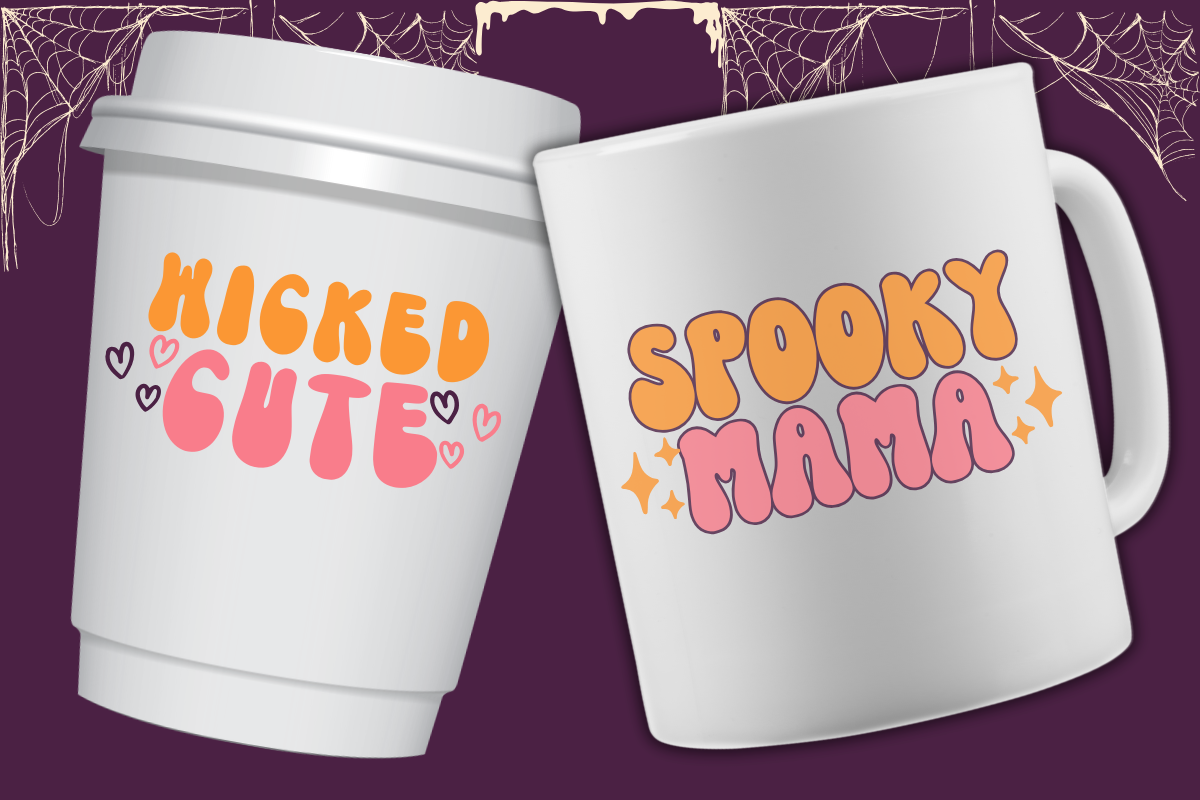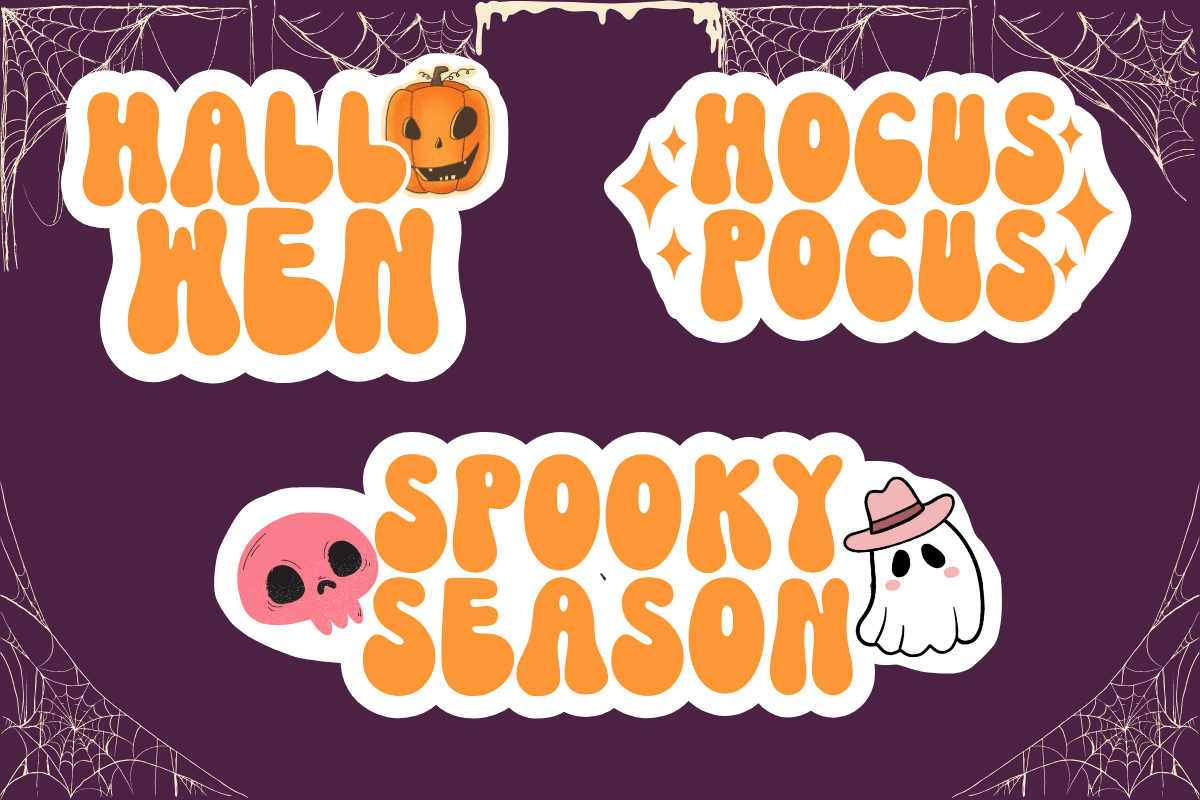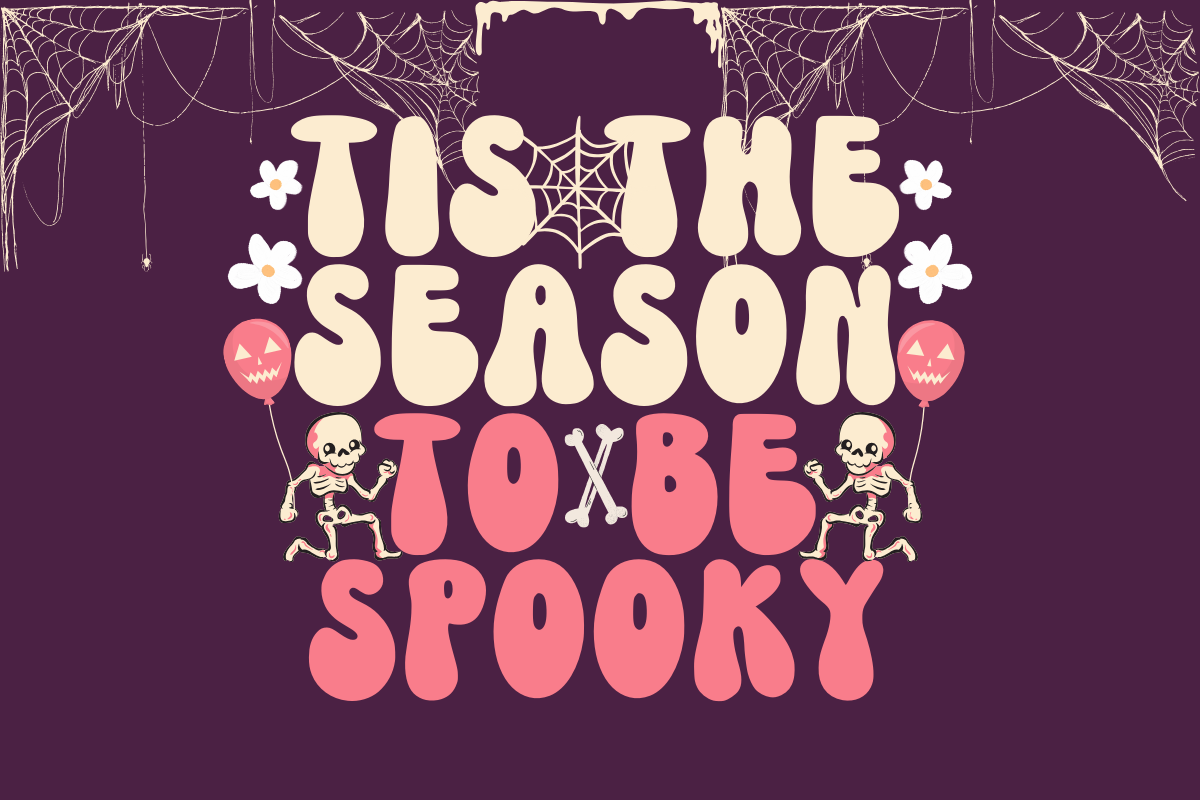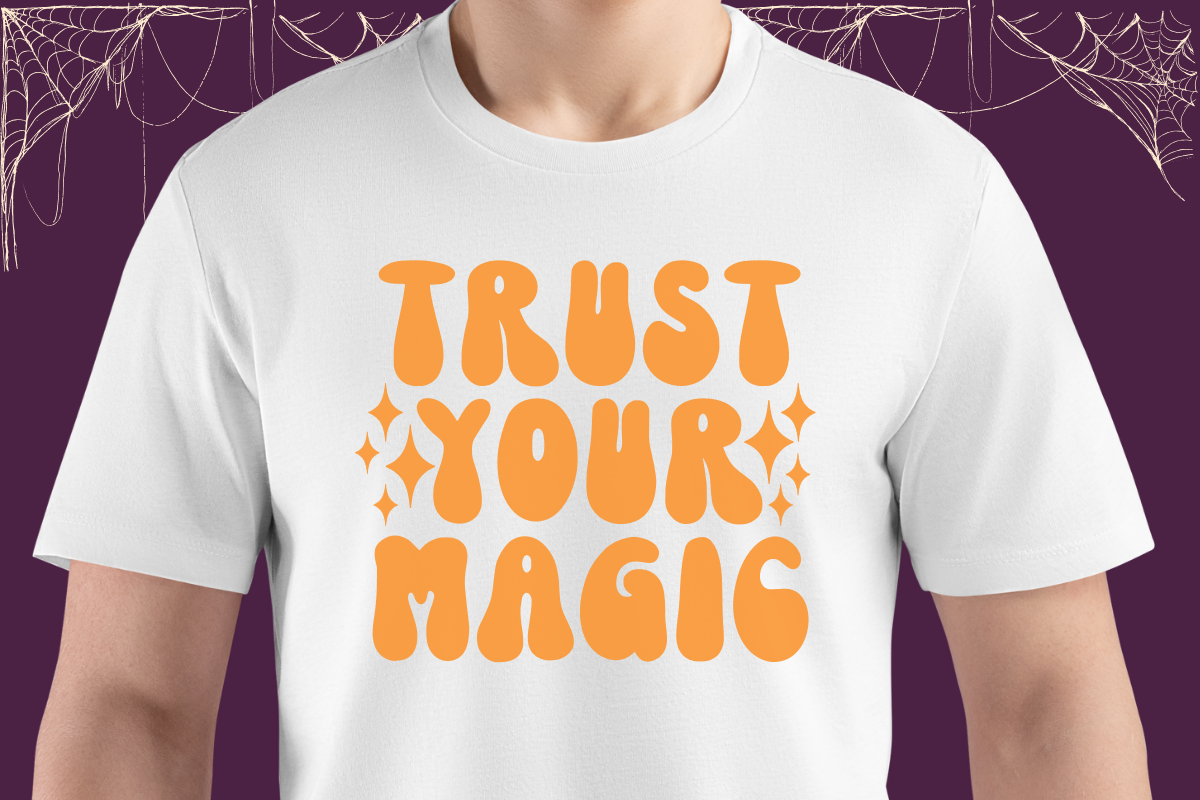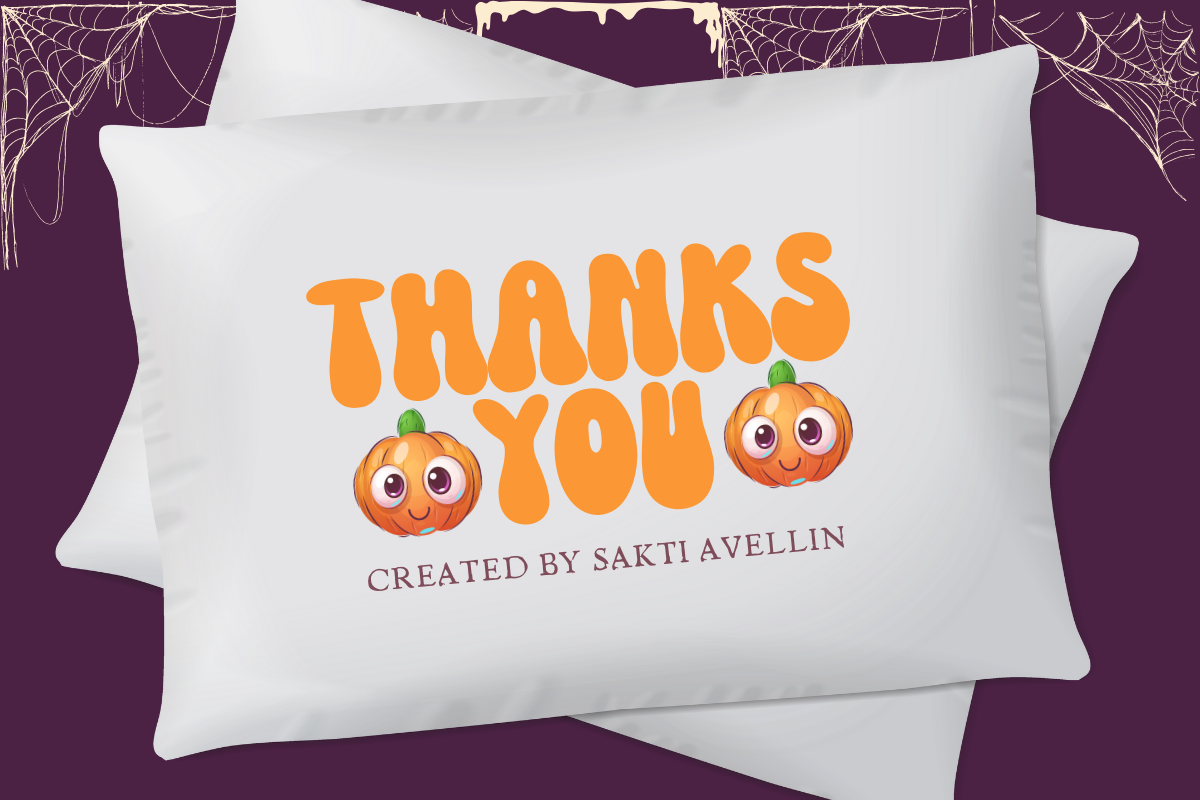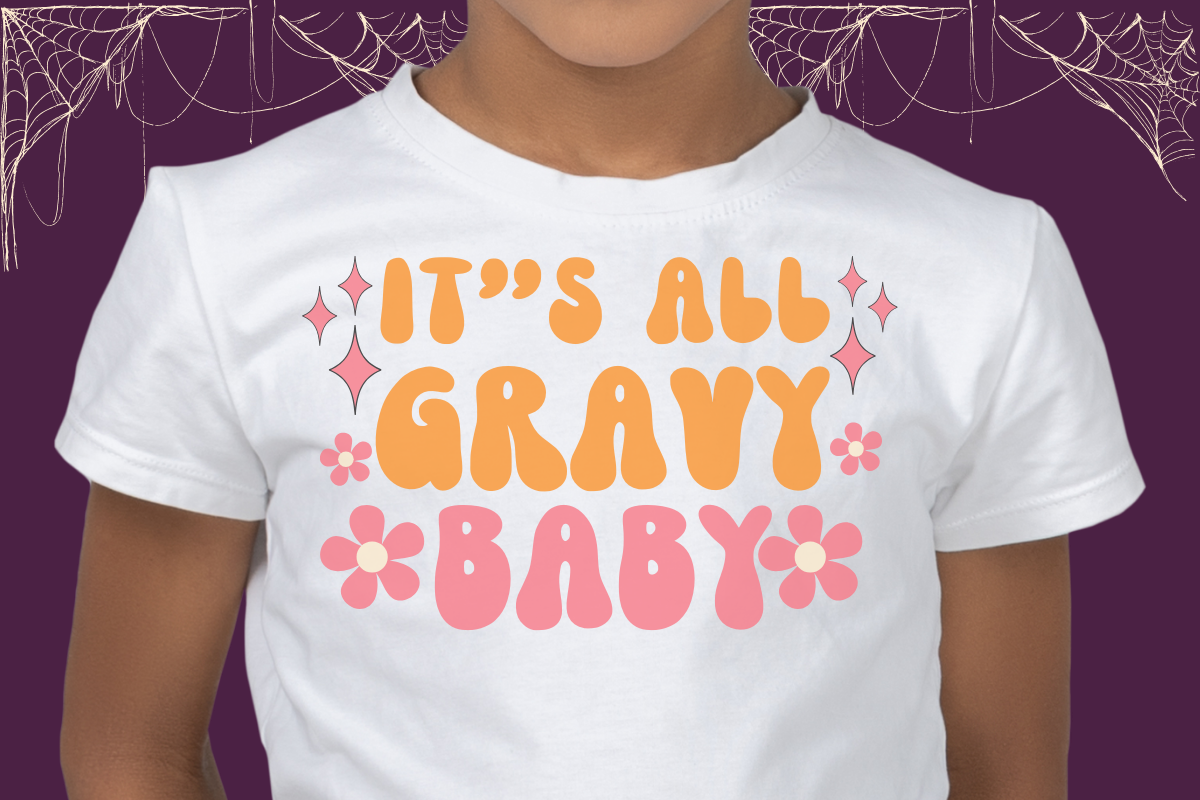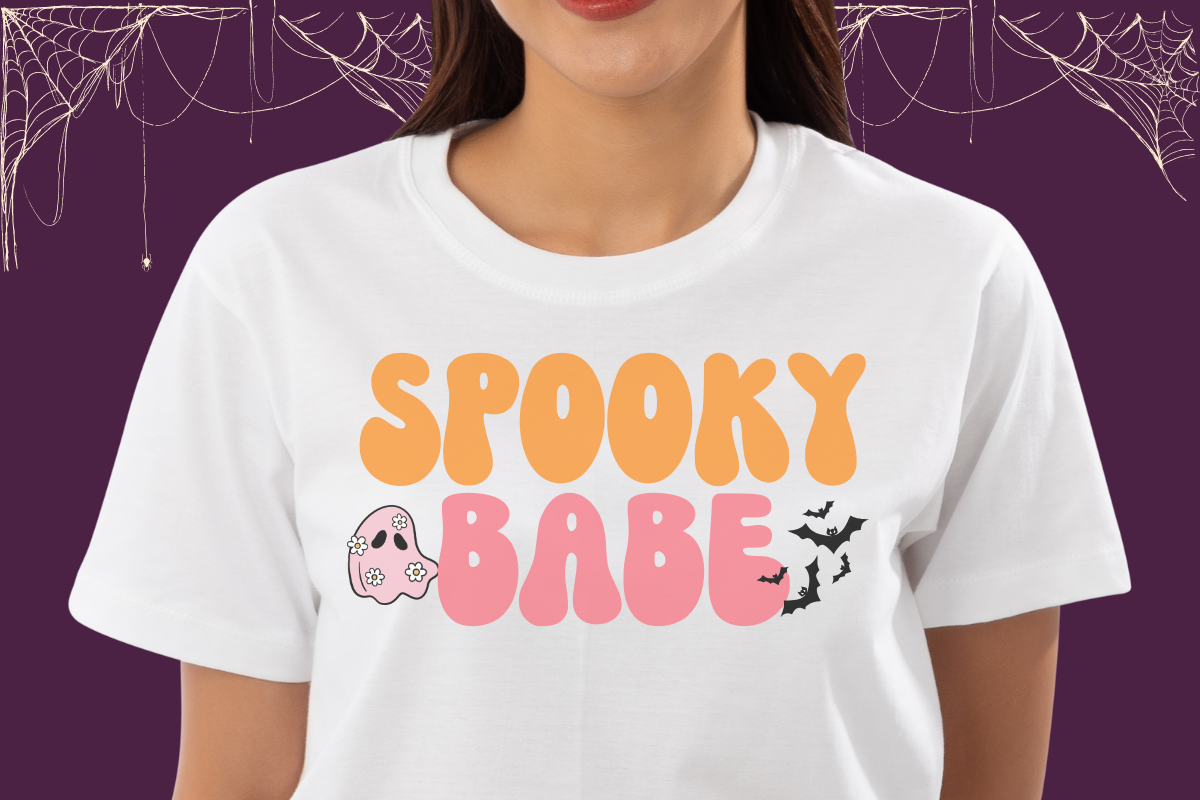
Magic Spooky
Unveil the magic of retro charm with Magic Spooky - a whimsical and stylish typeface. Add a touch of whimsy to your playful and cheerful design narratives. Grace your book covers, posters, packaging, merchandise, and logos with the snuggle of Magic Spooky, infusing authenticity and uniqueness in every stroke. It adds a delightful visual adventure to your designs, causing them to stand out amidst the sea of sameness. With Magic Spooky, transform a simple text into an enchanting piece of art that sets many hearts aflutter. Enjoy the versatility it offers, capturing the spirit of creative imaginations in more ways than one.